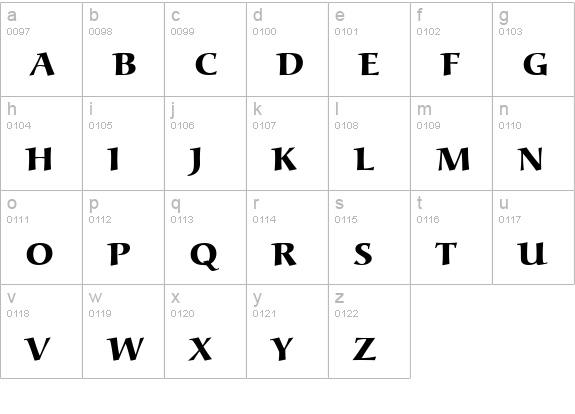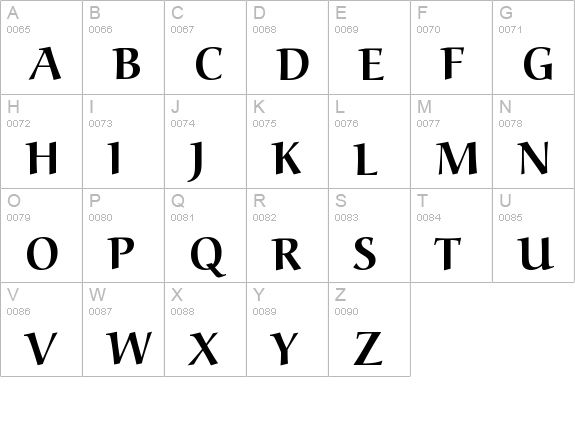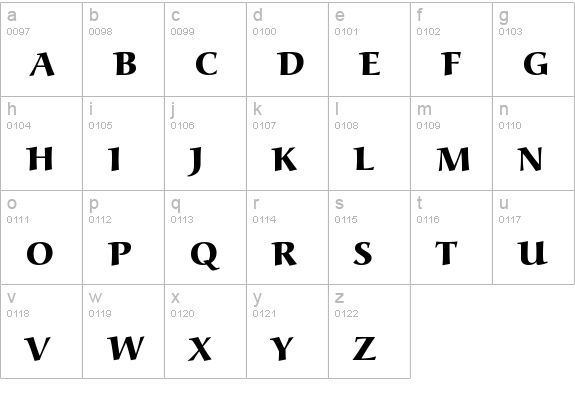
URWAlcuinDCDBol Font Details
URWAlcuinDCDBol is a stunning font that exudes elegance and sophistication. Created with meticulous attention to detail, this bold typeface is perfect for adding a touch of class to any design project. The strong and powerful letterforms demand attention, making it ideal for headlines, titles, and branding materials. What sets URWAlcuinDCDBol apart is not just its visually appealing design, but also the fact that it is available for free. Yes, you read that right! This fantastic font can be freely downloaded at FontsMarket.com, allowing you to enhance your creative endeavors without breaking the bank. Whether you're a professional designer, a student working on a project, or an enthusiast looking to add a touch of sophistication to your personal creations, URWAlcuinDCDBol is the perfect choice. Its versatility and timeless design make it suitable for a wide range of applications, from advertisements and posters to invitations and website designs. With URWAlcuinDCDBol, you can rest assured that your designs will stand out from the crowd. Its bold and distinctive letterforms will captivate your audience, leaving a lasting impression. So why wait? Download URWAlcuinDCDBol for free at FontsMarket.com and elevate your design projects to new heights.